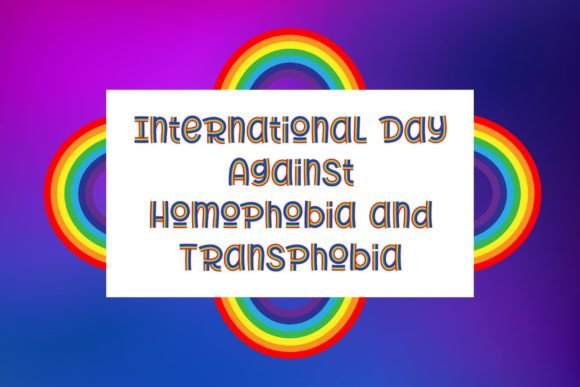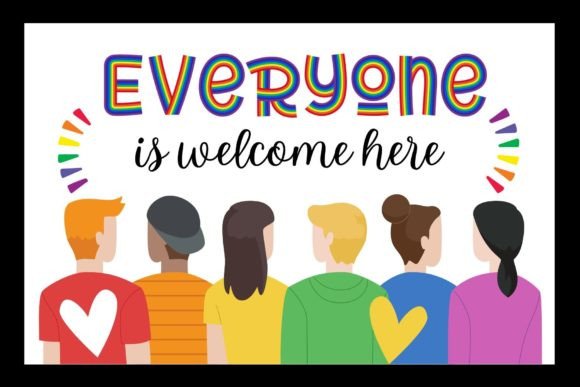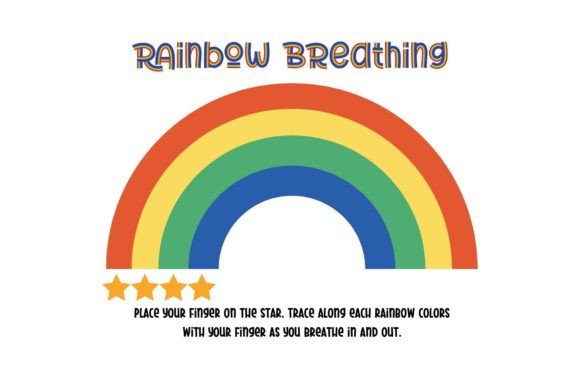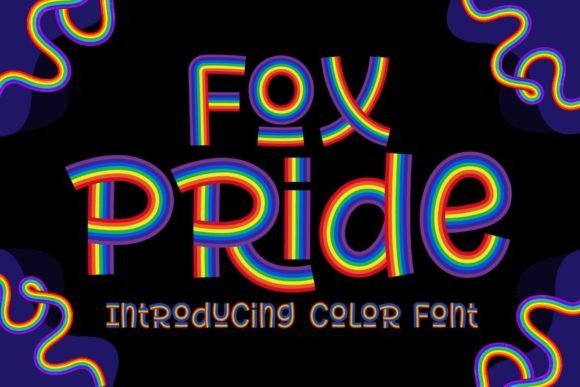
Introduction to Fox Pride Font
Fox Pride is a rainbow, beautiful, and cute color font.
Fox Pride Font offers exceptional quality and versatility, making it a valuable addition to your design toolkit. Whether you’re creating for personal projects or commercial use, Fox Pride Font delivers professional results.